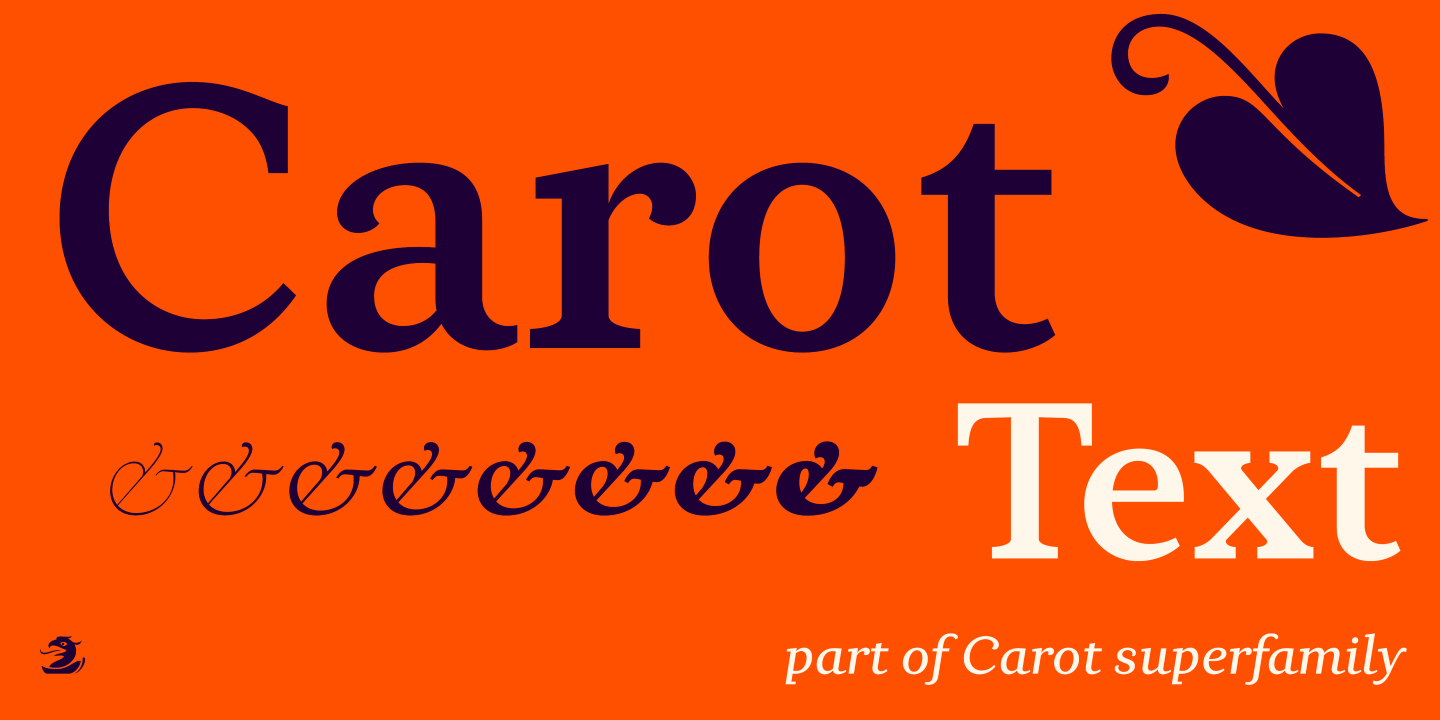
Carot Text Font is perfect for body text publications, academic journals, professional documents, editorial layouts, corporate reports, book typography, magazine articles, and extensive reading materials. This highly readable typeface excels in projects requiring exceptional legibility and comfortable reading experiences where text clarity meets typographic sophistication.
What makes Carot Text Font exciting is its masterful optimization for extended reading sessions through carefully crafted letterforms that reduce eye strain while maintaining visual interest. The font features balanced character proportions with subtle humanist touches and excellent x-height ratios that enhance readability across various sizes and mediums. Its reader-friendly character makes it ideal for publications and organizations prioritizing content accessibility and user experience in text-heavy applications.
Carot Text Font family includes comprehensive weight variations and extensive language support that provide exceptional flexibility for complex editorial projects. The family typically offers light, regular, medium, semibold, and bold weights, along with corresponding italic styles, small caps, and old-style numerals that enable sophisticated typographic hierarchies and professional publication standards.
Whether you're designing academic textbooks, creating corporate documentation, or developing editorial publication systems, Carot Text Font Free Download delivers unparalleled reading comfort across all text applications. This font's exceptional legibility and professional quality make it perfect for publishers, educators, and organizations committed to creating accessible and engaging reading experiences.
The meticulously refined letterforms and optimal character spacing of Carot Text Font ensure comfortable reading while maintaining distinctive personality that keeps readers engaged throughout long documents. Its professional design and reading optimization create positive user experiences that enhance comprehension and retention. Download Carot Text Font today and improve your publication's readability with this expertly crafted text typeface that perfectly balances legibility with typographic character for superior reading experiences.